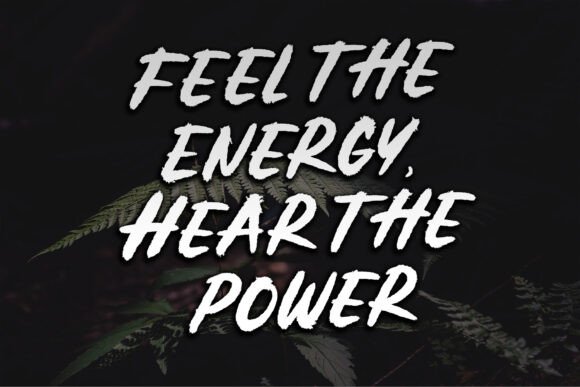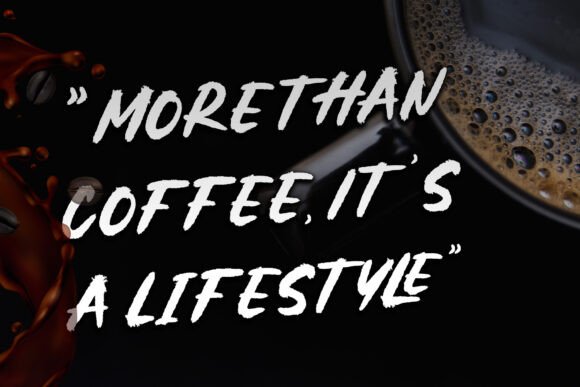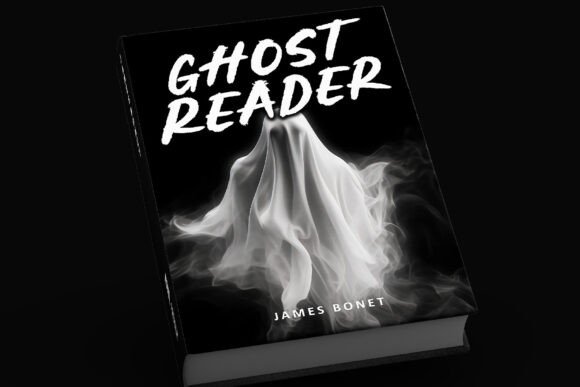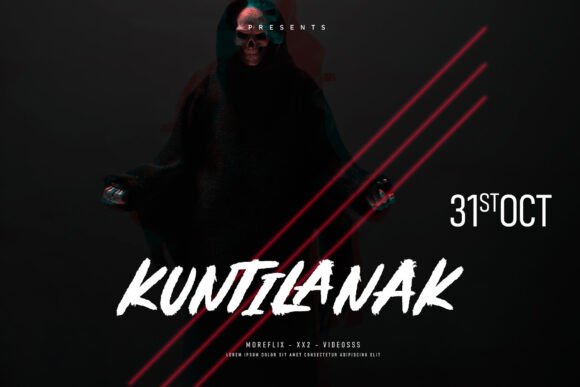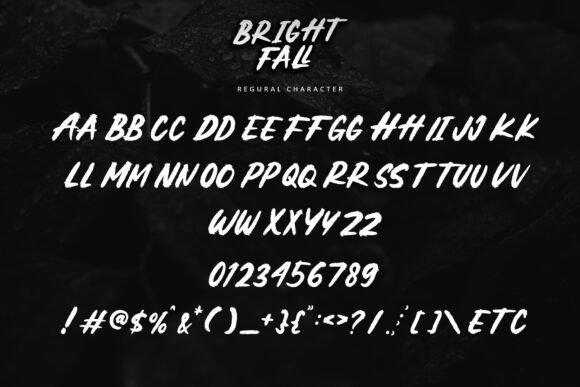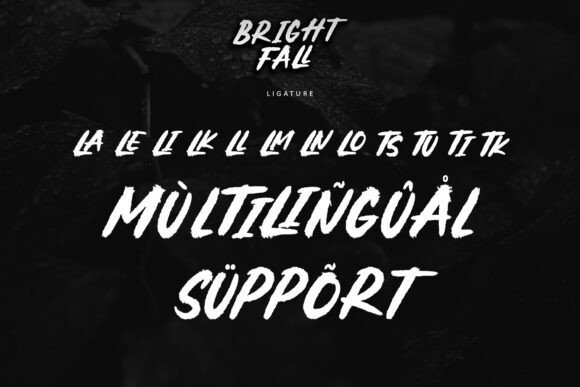
The Spark That Ignites Your Design
As a designer, you know that moment when an idea strikes and you can’t wait to bring it to life. The rush of adrenaline, the thrill of creation – it’s a feeling that’s hard to replicate. But what if you had a tool that could amplify that spark, taking your designs to the next level and leaving a lasting impression? Enter Brightfall, a natural strong brush font that embodies the essence of movement and strength.
Brightfall Font is more than just a font – it’s a statement piece that adds boldness and unstoppable energy to your work. Perfect for logos, posters, packaging, and more, its dynamic strokes and textured finish bring a handcrafted touch that’s impossible to ignore. Whether you’re a seasoned pro or just starting out, Brightfall is the perfect addition to your design arsenal, offering effortless access to unique features and a level of customization that’s unmatched.
Brightfall Font Key Features
- Font Family: Brightfall Font offers a unique, hand-drawn design with multiple font styles, including Regular, Italic, Bold, and Bold Italic.
- Unique Characteristics: The font features intricate, hand-drawn details and subtle texture, giving it a distinctive, artistic feel.
Brightfall Font Review
I recently had the chance to work with the Brightfall font, and I must say it’s a unique addition to any designer’s toolkit. ✨ Here are some things that stood out to me:
- Expressive Nature**: The Brightfall font is incredibly expressive, with a wide range of styles and weights to choose from. This makes it perfect for designers who want to add some personality to their projects.
- Readability**: Despite its bold nature, the font is surprisingly easy to read, even at smaller sizes. This is a testament to the designer’s skill and attention to detail.
- Customization Options**: The font comes with a range of customization options, from ligatures to ornaments, which can really help to elevate a design.
Of course, no font is perfect, and the Brightfall font has its limitations. ⚠️ Here are a few things to be aware of:
- Limited Compatibility**: I found that the font didn’t work perfectly in all browsers, which can be a problem for designers who need to ensure cross-browser compatibility.
- Some Characters May Be Missing**: I noticed that some characters, such as accented letters, were missing from the font. This can be a problem for designers who need to work with languages that require these characters.
Overall, I’d say the Brightfall font is a solid addition to any designer’s toolkit. While it may have its limitations, the expressive nature and readability of the font make it well worth considering for any project.
The Brightfall font is ideal for:
- Artistic and creative projects
To get the most out of the Brightfall font, try:
- Pairing it with bold or italic fonts for contrast
- Experimenting with font sizes and styles
- Use Brightfall Font for the invitation’s title and main text to evoke a sense of enchantment.
- Pair it with illustrations of trees, flowers, and animals to create a whimsical atmosphere.
- Combine with a muted color palette of greens, blues, and earthy tones to bring the woodland theme to life.
Project 1: Whimsical Woodland Invitations
Create a unique and enchanting invitation for a woodland-themed wedding or event. Brightfall Font adds a touch of mysticism and wonder.
Project 2: Steampunk-Inspired Travel Journal
Design a travel journal that combines the elegance of steampunk with the adventure of exploration. Brightfall Font adds a touch of sophistication and mystery.
Project 3: Dark Fantasy Book Cover Design
Create a haunting and atmospheric book cover for a dark fantasy novel. Brightfall Font adds a touch of eeriness and foreboding.